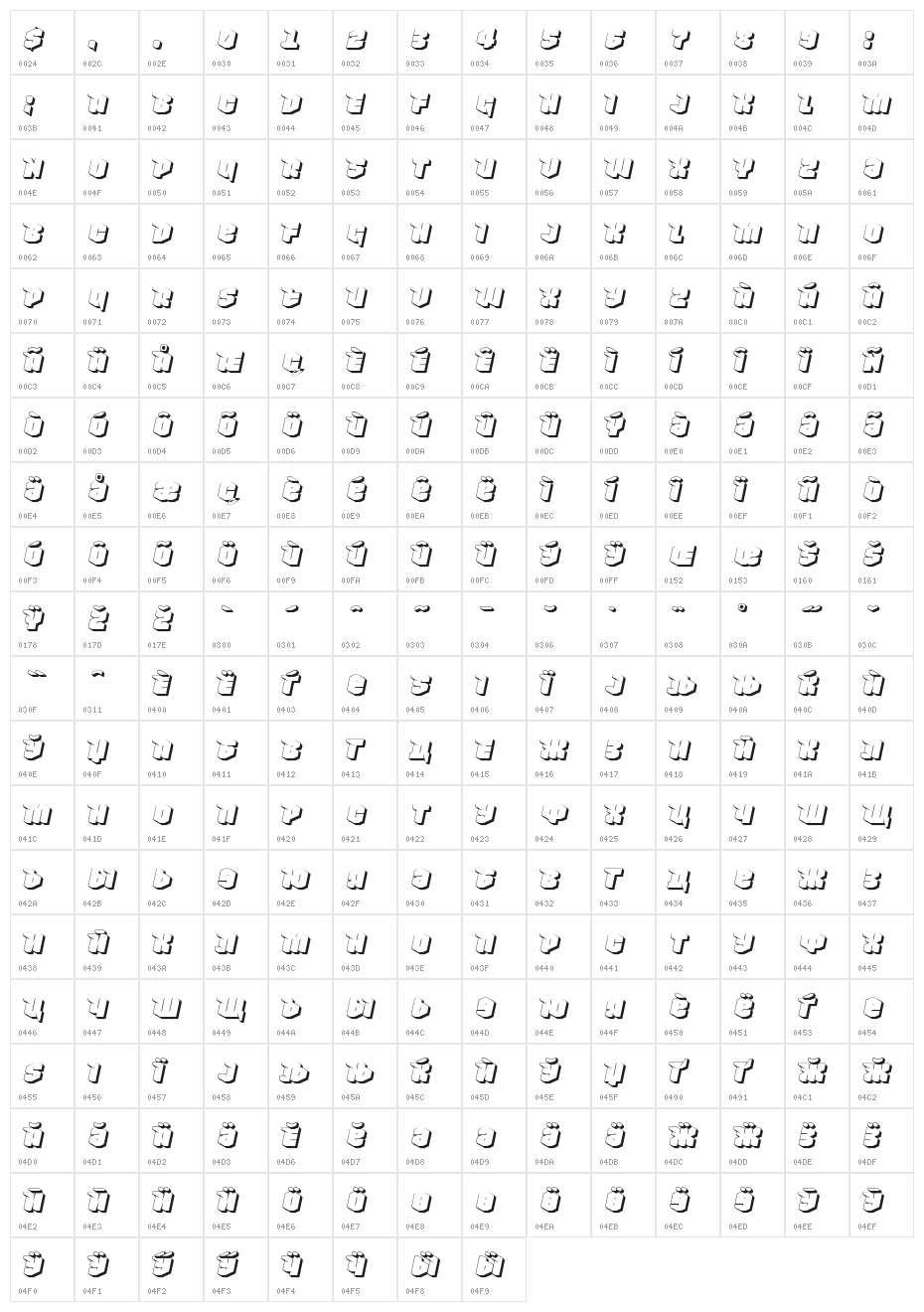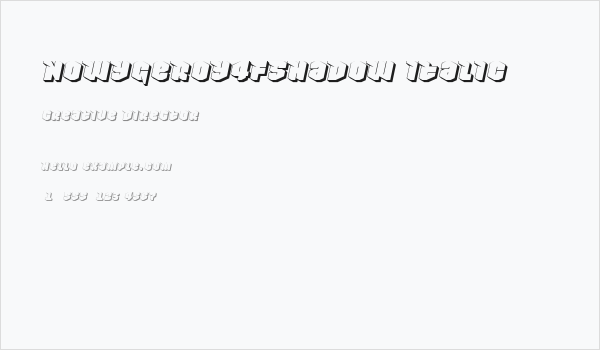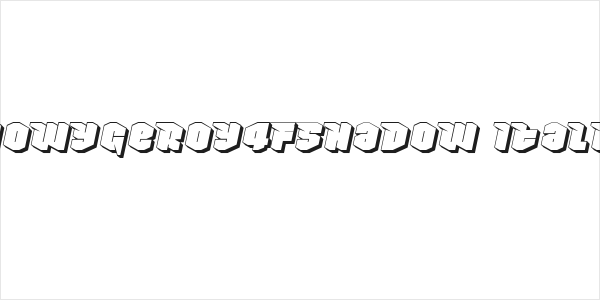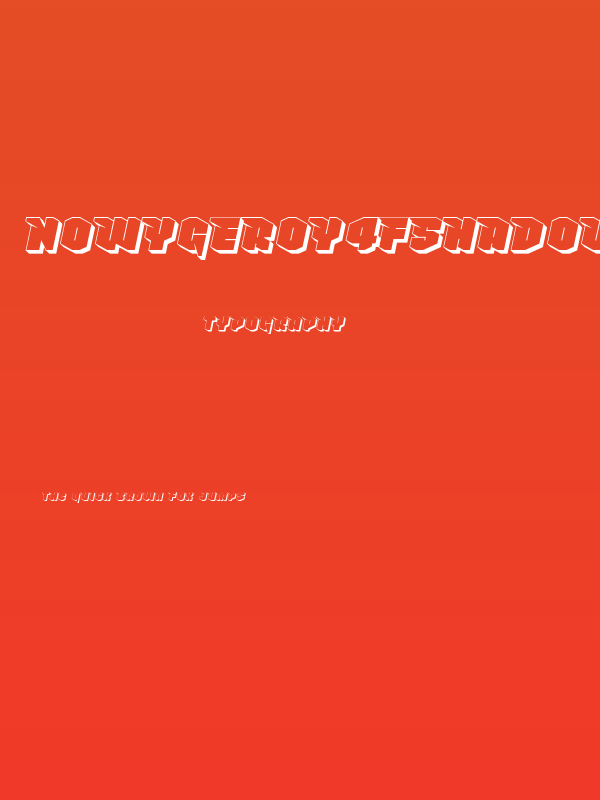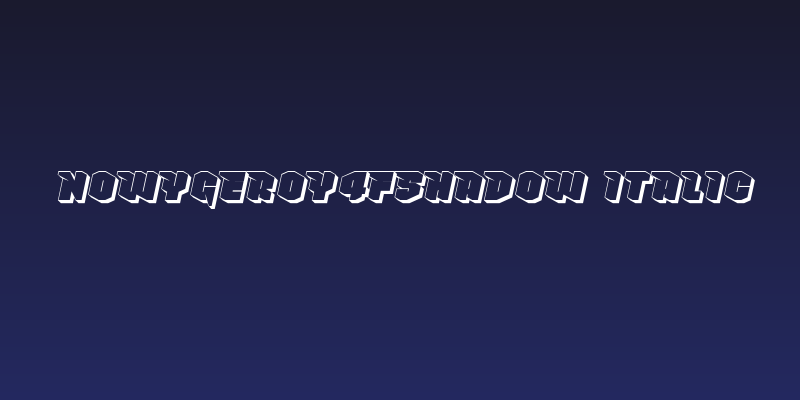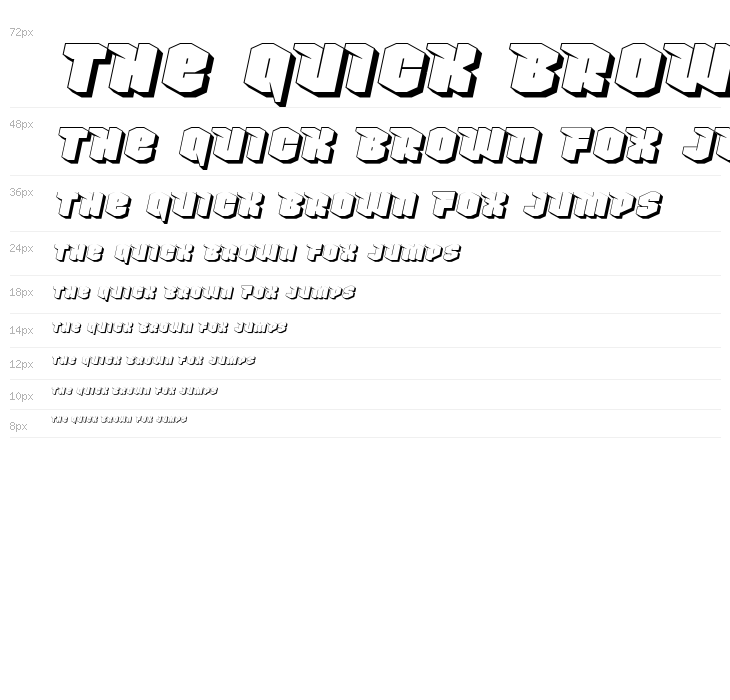
NowyGeroy4FShadow-Italic Font
NowyGeroy4FShadow-Italic Description
This font features a bold, three-dimensional appearance with a distinct shadow effect that gives it a striking and dynamic look. The characters are blocky and robust, with sharp angles and a strong presence. The italic style adds a sense of movement and energy, making it stand out even more. The shadow effect is consistent across all characters, enhancing the depth and making the text appear as if it's lifted off the page. This font is perfect for creating eye-catching headlines or titles that need to grab attention. The uppercase and lowercase letters maintain a uniform style, ensuring consistency in design. The numbers and special characters are equally bold and impactful, making them suitable for a variety of uses.